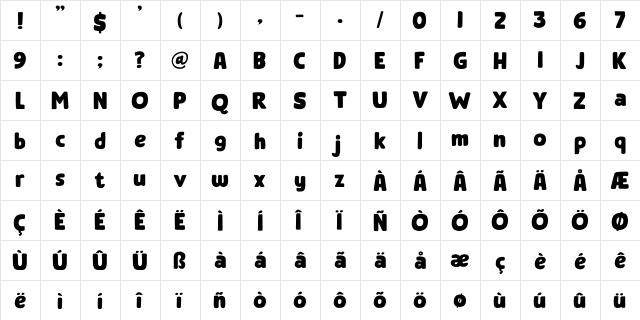
Mikan DEMO Regular
| Foundry | David Kerkhoff |
| Designer | David Kerkhoff |
Design Context for Mikan DEMO Typeface
Mikan DEMO offers clean, dependable letterforms without strong stylistic allegiance, making it a practical choice for designers who need flexibility.